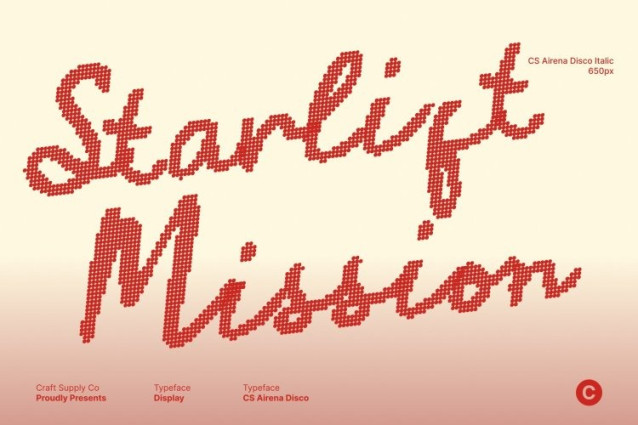
CS Airena Disco Font
CS Airena Disco Font This is a romantic and stylish script font inspired by the gentle flow of Mediterranean handwriting. Its smooth, sweeping strokes create an elegant rhythm that feels warm, refined, and effortlessly beautiful. Each letter is crafted to look organic yet polished, giving the font a luxurious handwritten presence that elevates any design.
Mediterranean Romance with Disco-Inspired Glow
Infused with coastal charm and sunlit romance, carries a distinctive Mediterranean character that feels soft and graceful. Subtle disco-inspired energy adds a luminous, celebratory feel like evening lights along a seaside promenade enhancing its elegance without overpowering its romantic nature. This balance creates a script that feels emotional, expressive, and memorable.
Elegant Choice for Branding and Luxury Packaging
Perfect for refined branding and upscale packaging, conveys exclusivity and sophistication through its flowing curves and stylish letterforms. It is ideal for fashion labels, beauty products, artisan goods, and bespoke branding concepts. Whether used in logos, taglines, or labels, this font enriches visual storytelling with graceful confidence.
Ideal for Weddings and Refined Print Designs
With its romantic flair and fluid letter connections, this font is a natural choice for wedding invitations, event stationery, and elegant print projects. It adds an intimate, graceful touch to announcements, greeting cards, and decorative layouts bringing timeless beauty with a hint of festive glow.